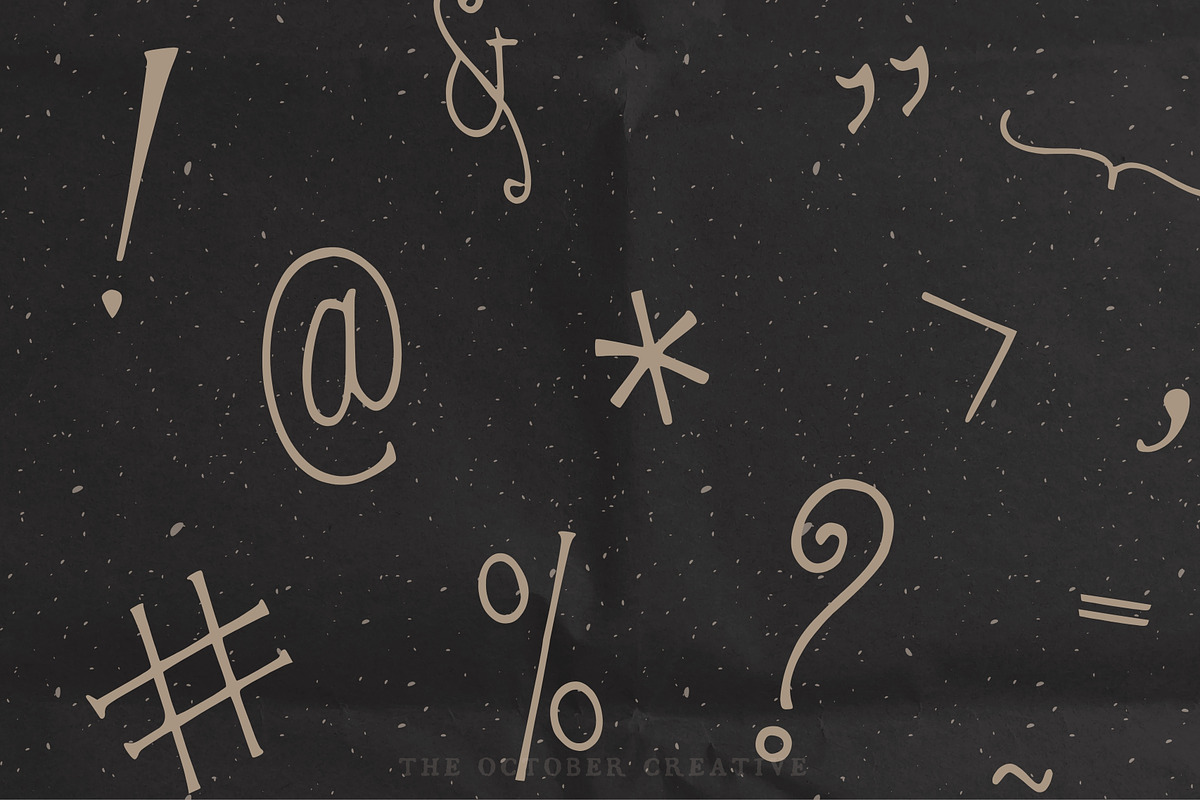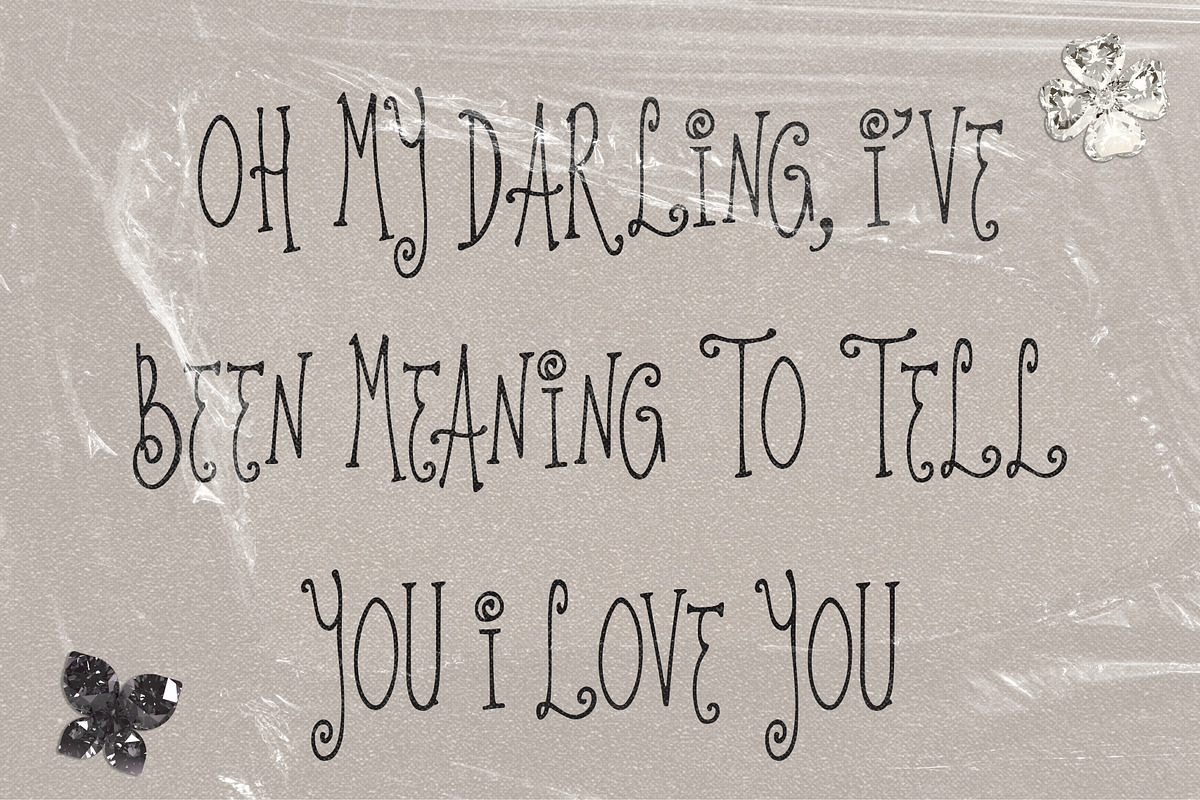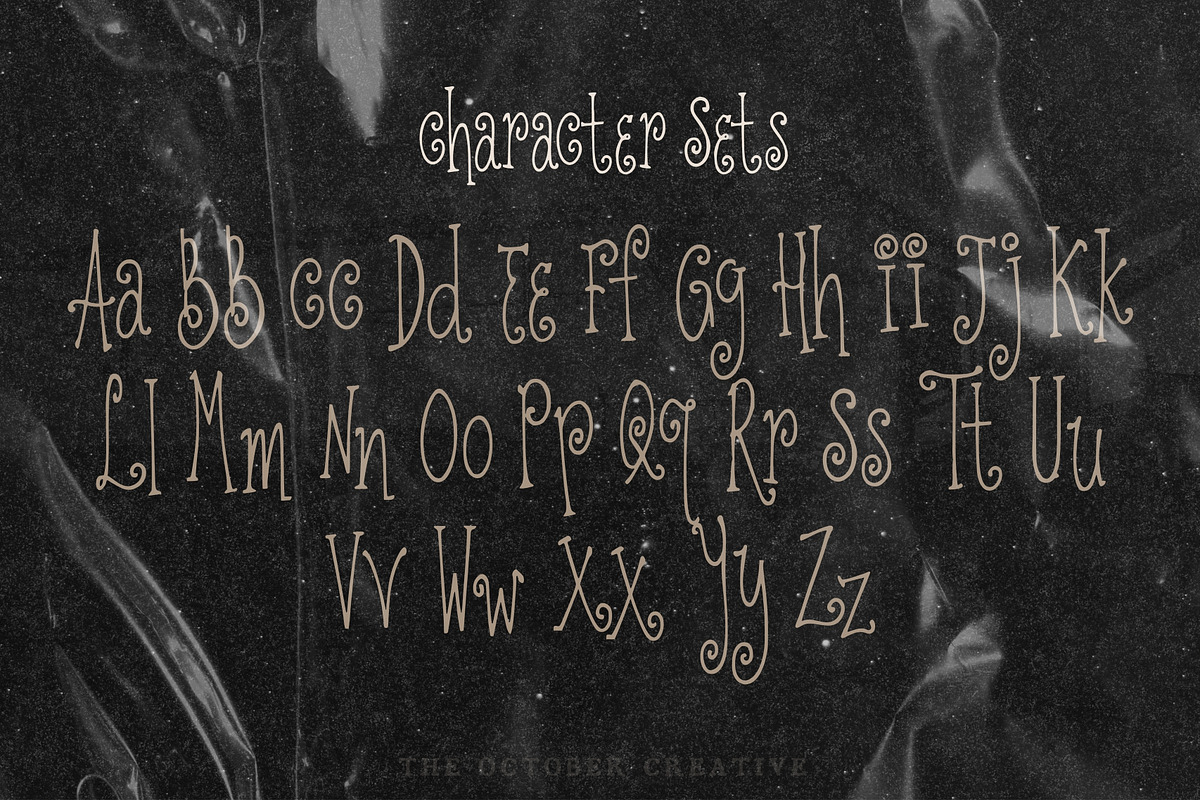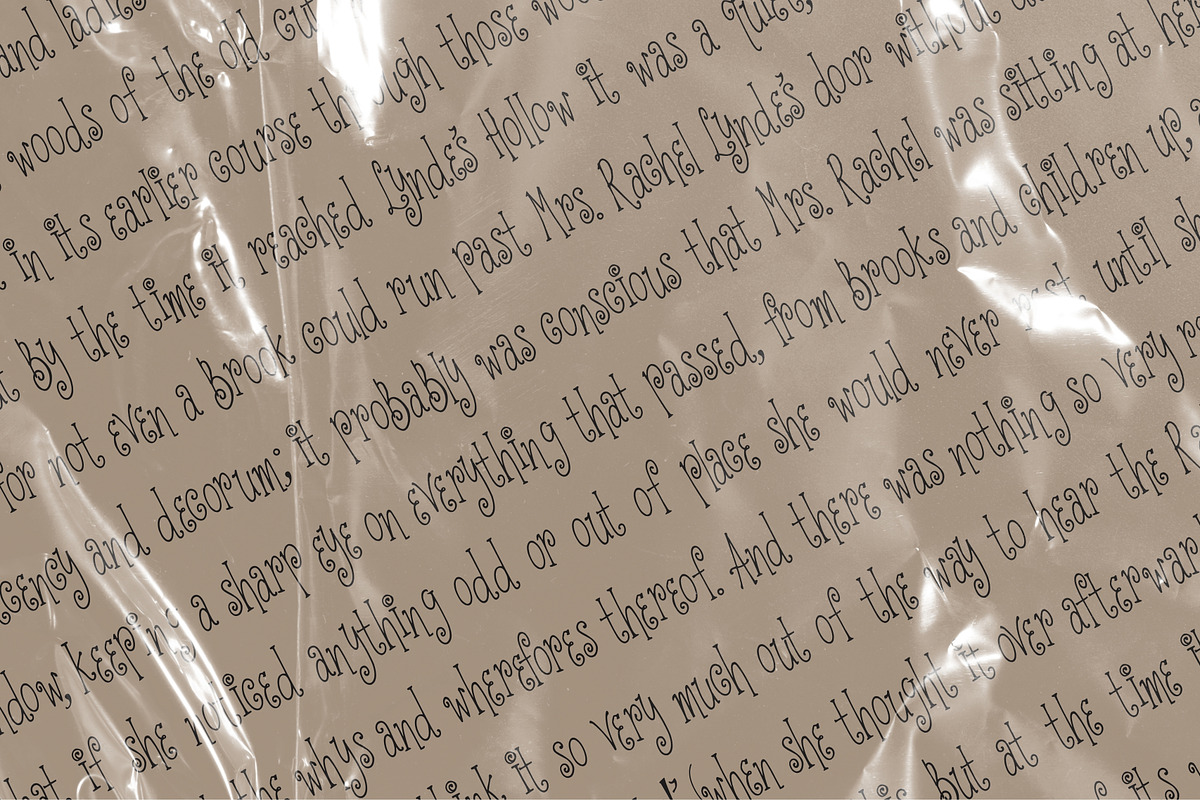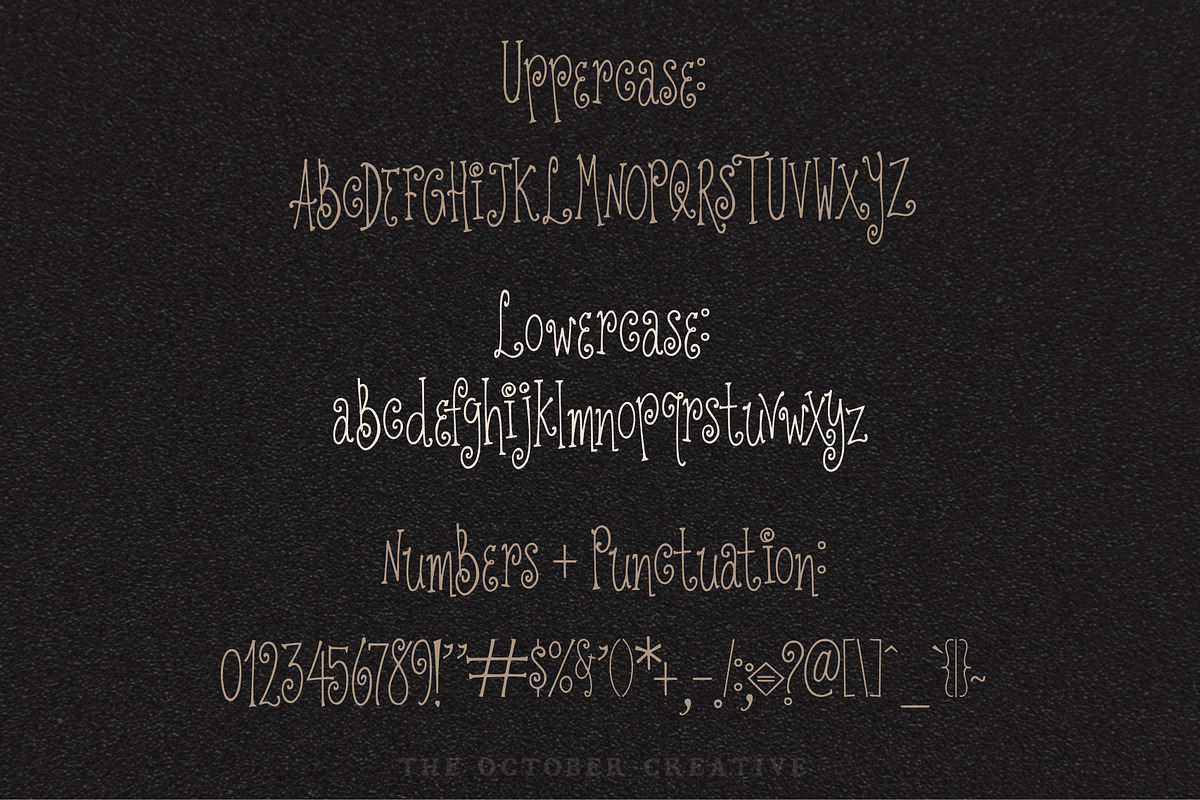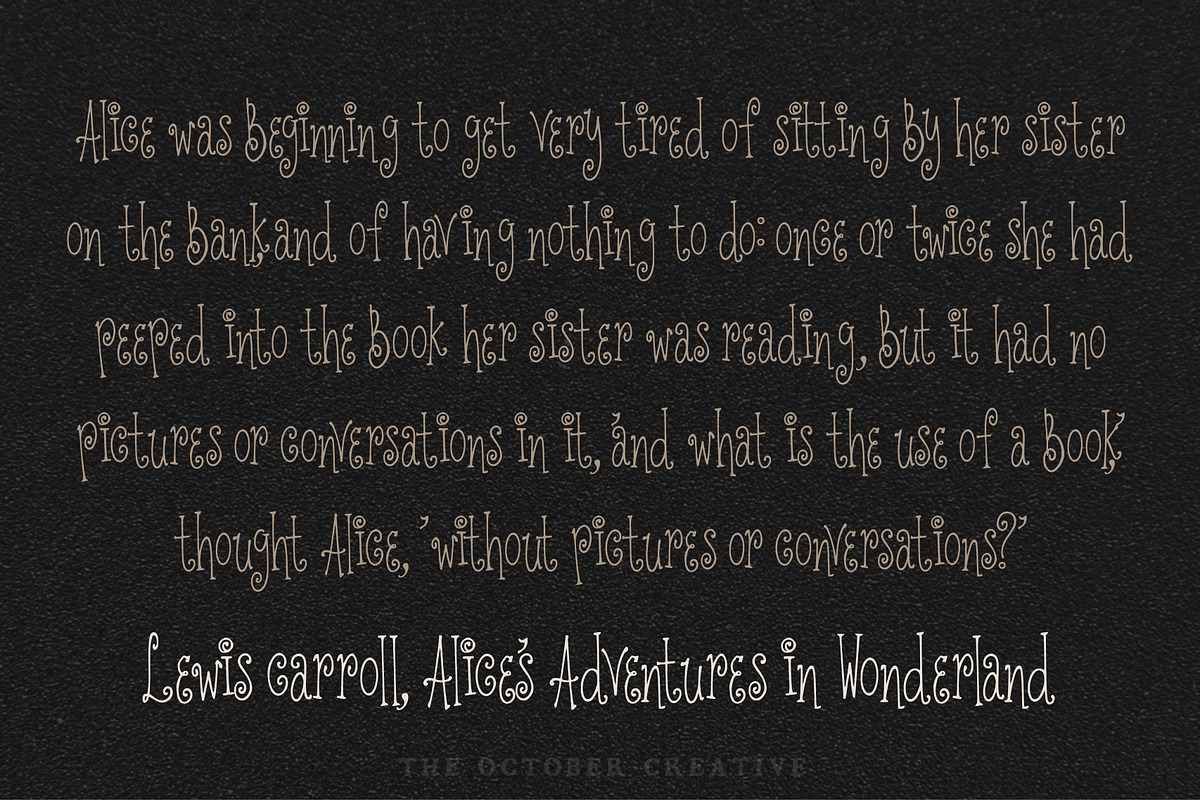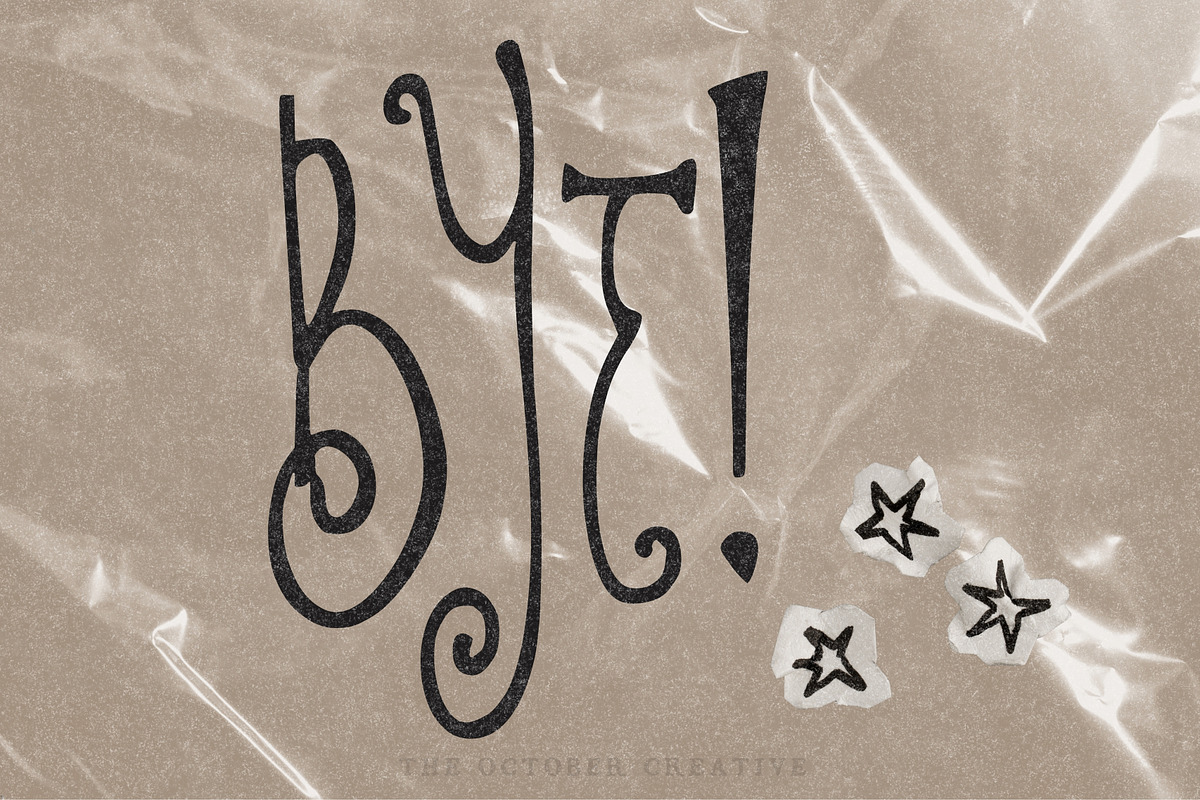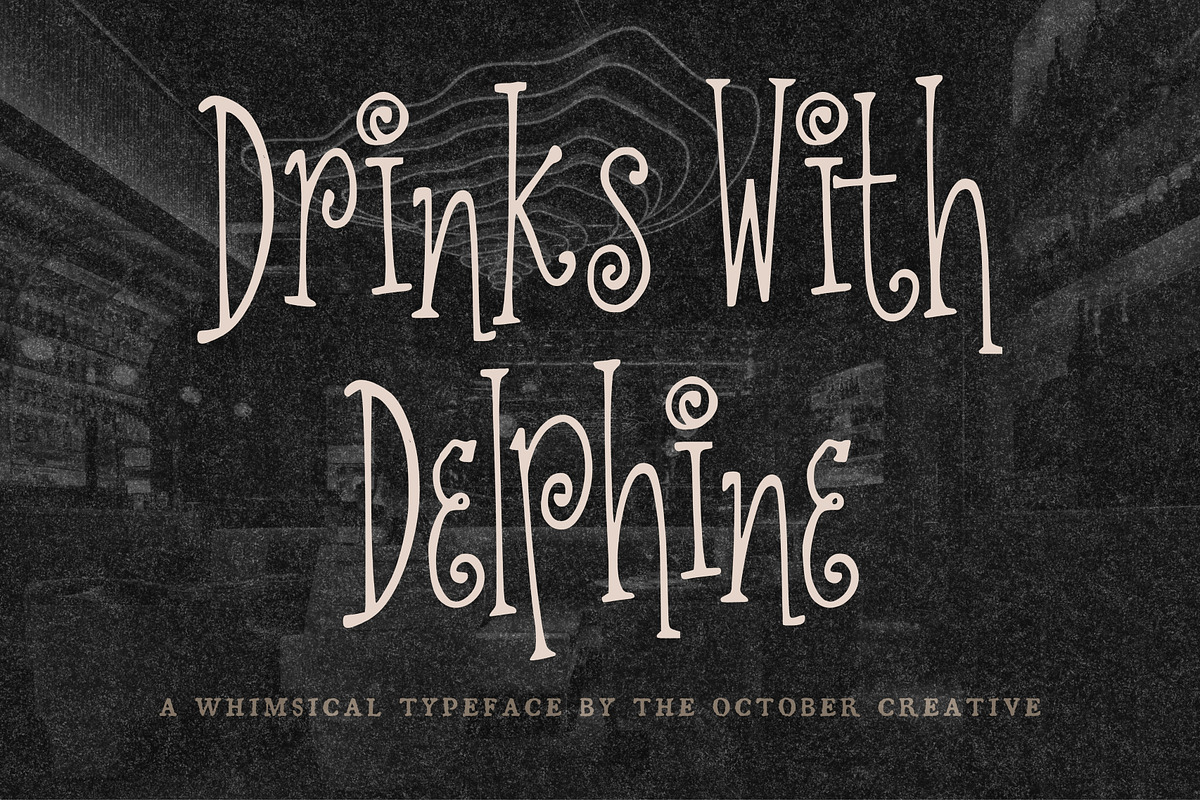
Drinks With Delphine Girly Display
Drinks With Delphine is a spindly display font with tall thin letters, small curls on the D and the h, and a lot of air between them. It fits cocktail menus, restaurant signage, supper club invitations, and bar labels.
CHARACTER SET
Uppercase A to Z, lowercase a to z, numerals 0 to 9, and every standard keyboard punctuation mark and symbol: ! " # $ % & ' ( ) * + , - . / : ; < = > ? @ [ \ ] ^ _ ` { | } \~
Curly quotes and apostrophes (‘ ’ “ ”), en and em dashes, an ellipsis, and a bullet.
Accented letters: À Á Â Ã Ä Å Ç È É Ê Ë Ì Í Î Ï Ñ Ò Ó Ô Õ Ö Ù Ú Û Ü and their lowercase forms.
LANGUAGES SUPPORTED
English, plus the accented vowels, Ñ, and Ç used in names and everyday words in Spanish, French, Italian, Portuguese, German, and Dutch. Not included: ß, Æ, Ø, Œ, and the upside-down ¿ and ¡.
SPECIAL CHARACTERS